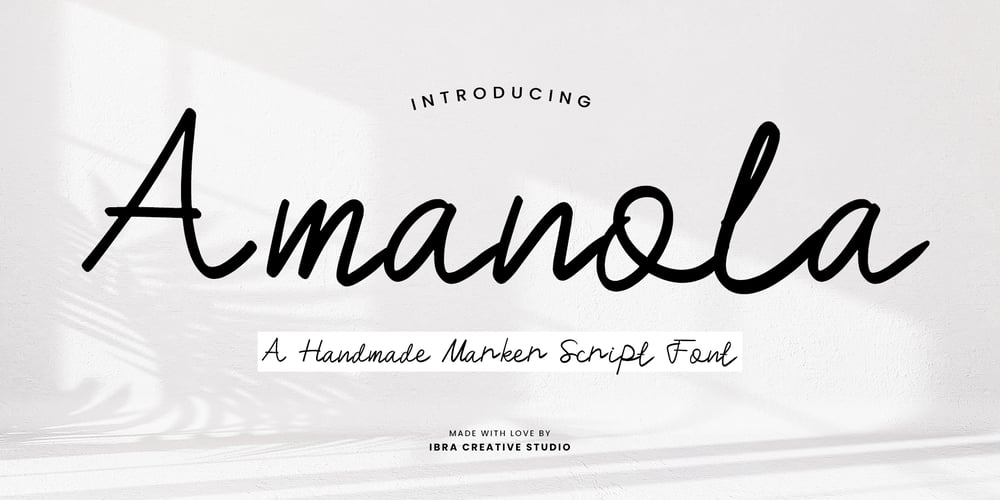
Amanola
Amanola font
Amanola Font Family was designed by Roisatul Azizah and published by IbraCreative. Amanola contains 1 styles and family package options. Amanola – A Handmade Marker Script FontAmanola, a captivating handmade marker script font, seamlessly blends the warmth of handcrafted authenticity with modern design elements. This typeface exudes a distinctive charm, featuring fluid strokes and an organic flow that emulates the character of hand-drawn markers. Amanola’s letters dance across the page with an effortless grace, infusing any project with a sense of creativity and spontaneity. Its carefully crafted details, such as subtly varying line weights and playful letter connections, contribute to a uniquely personalized and inviting aesthetic. Whether used for branding, packaging, or design projects, Amanola stands as a testament to the beauty of imperfection and the artistry inherent in handmade creations.Amanola is perfect for branding projects, logo, wedding designs, social media posts, advertisements, product packaging, product designs, label, photography, watermark, invitation, stationery, game, fashion and any projects.Fonts include multilingual support for; Afrikaans, Albanian, Czech, Danish, Dutch, English, Estonian, Finnish, French, German, Hungarian, Italian, Latvian, Lithuanian, Norwegian, Polish, Portuguese, Slovak, Slovenian, Spanish, Swedish.